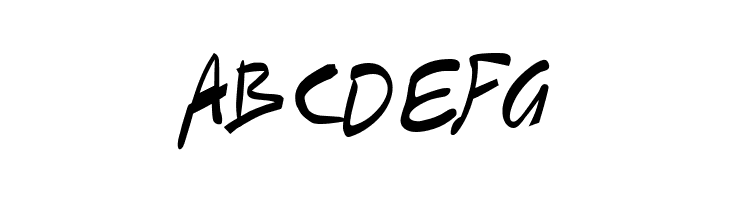
skrunch Bold Italic Font
- Font: skrunch Bold Italic
- Weight: Bold Italic
- Version: Version 1.00 July 11, 2013, initial release
A dynamic handwritten font with fluid, irregular strokes and a playful aesthetic.